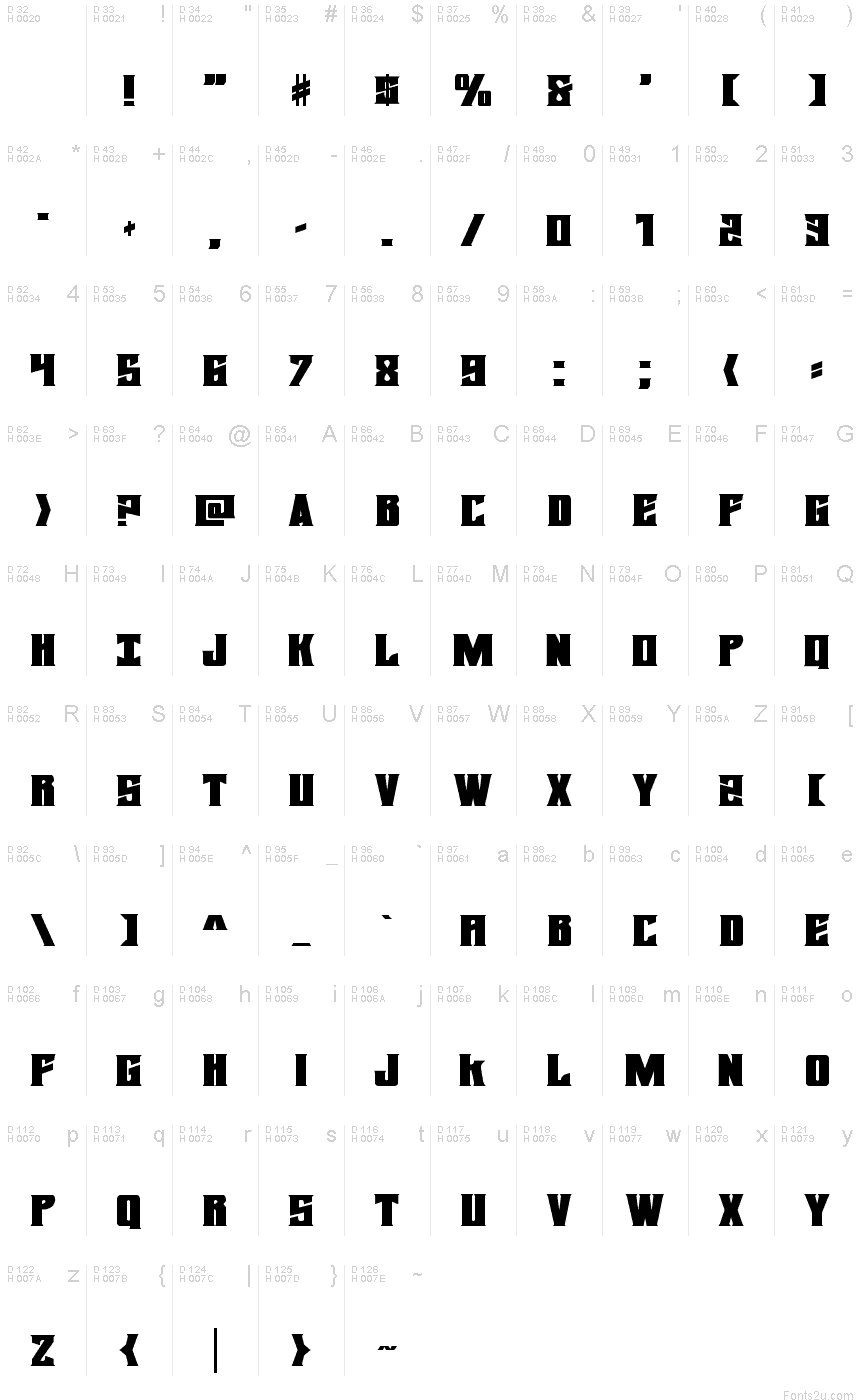
Daemonicus Expanded, created by Iconian Fonts in 2012, is a free retro display font with a hard-edged, futuristic profile. Its broad capitals combine blunt vertical masses with pointed cuts and narrow internal gaps, giving the lettering the look of custom machinery or stylized armor.
A science-fiction game title is its strongest setting, with the same aggressive geometry suiting metal album covers, action-film posters, and arcade merchandise. In entertainment branding, the letters can become part of an emblem or vehicle badge rather than serving as neutral text.
This is a bold display font with a full Latin character set and alternate letterforms for uppercase and lowercase.